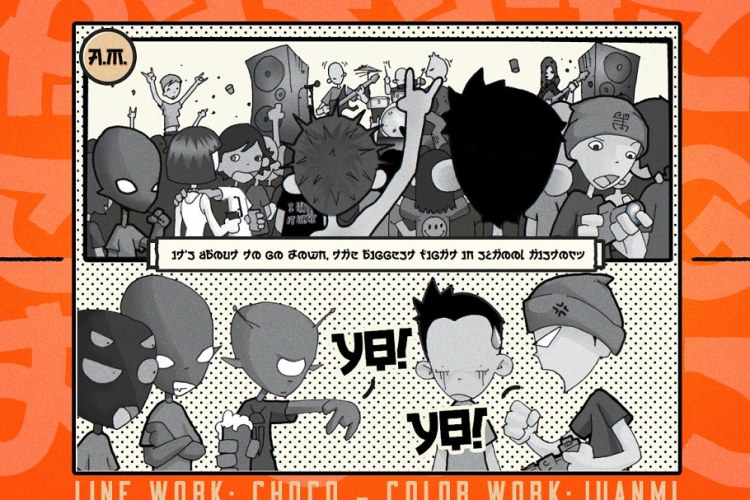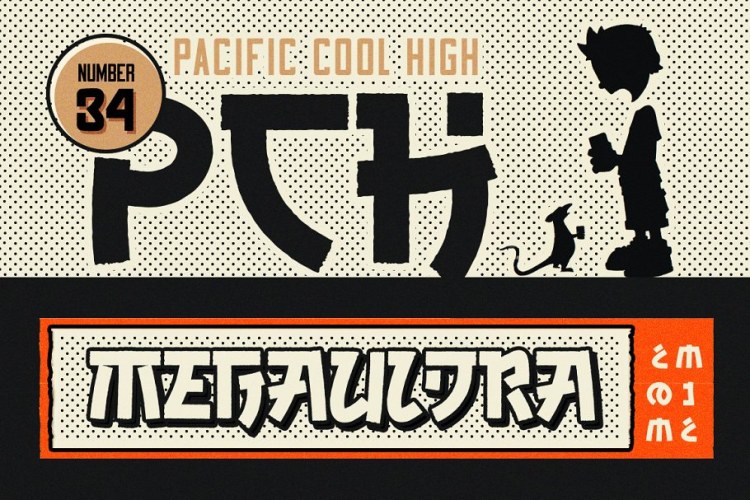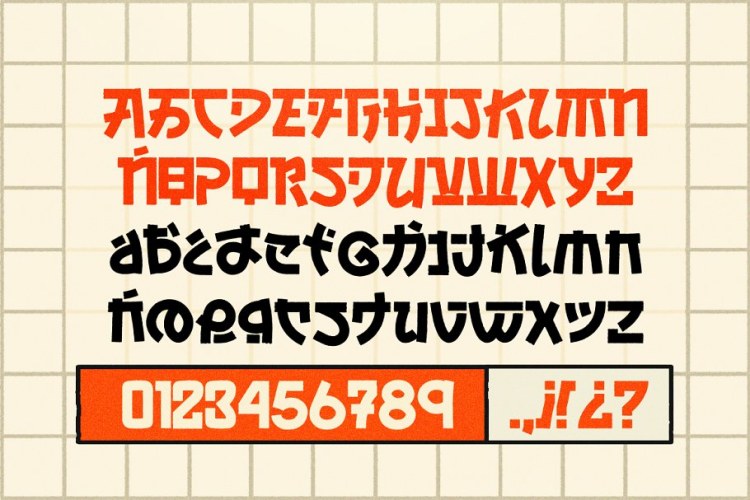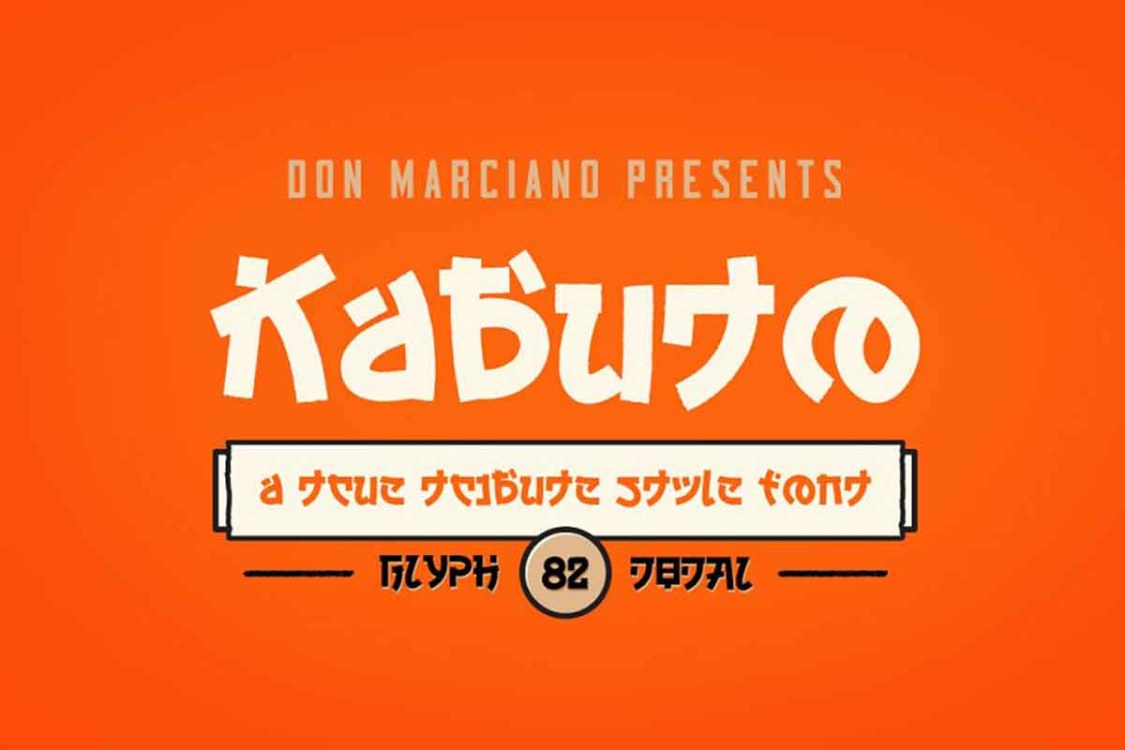
Kabuto Tribute Font
Kabuto is a tribute style font, design to emulate the great look and feel of the Japanese alphabet so it can be readable by westerners as it retains the elegant and exotic style of its inspiration; designed with straight and curve lines with a combination semi roughness, originally for a apparel only brand focus on stream media products that are easy to scale up.
Kabuto Tribute Font is built for size: event posters, hero headlines and billboard-style layouts.
High contrast display type like Kabuto Tribute Font reads instantly in thumbnails and motion graphics.
What is Kabuto Tribute Font good for?
Kabuto Tribute Font is a Display Fonts typeface tagged Branding, Display, Display Fonts, Elegant. It works well for headlines, logos, posters, social media graphics and branding projects that need a distinctive display fonts look.